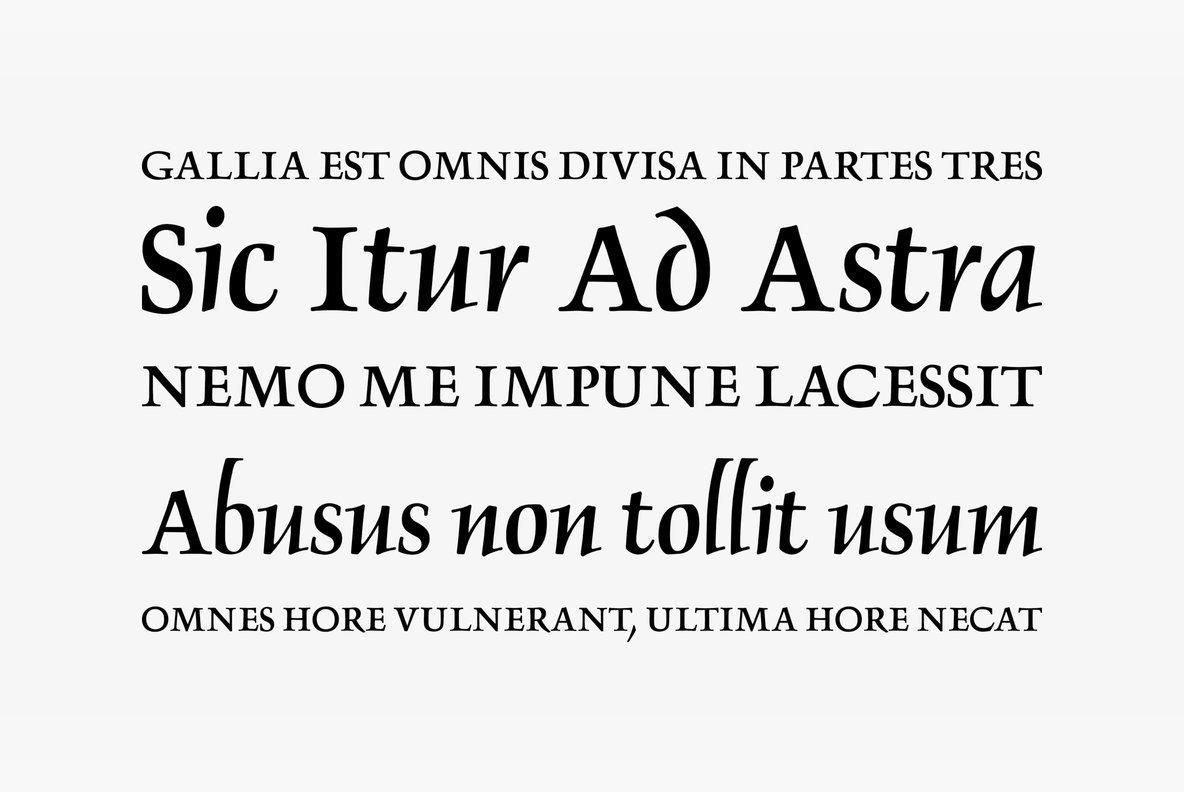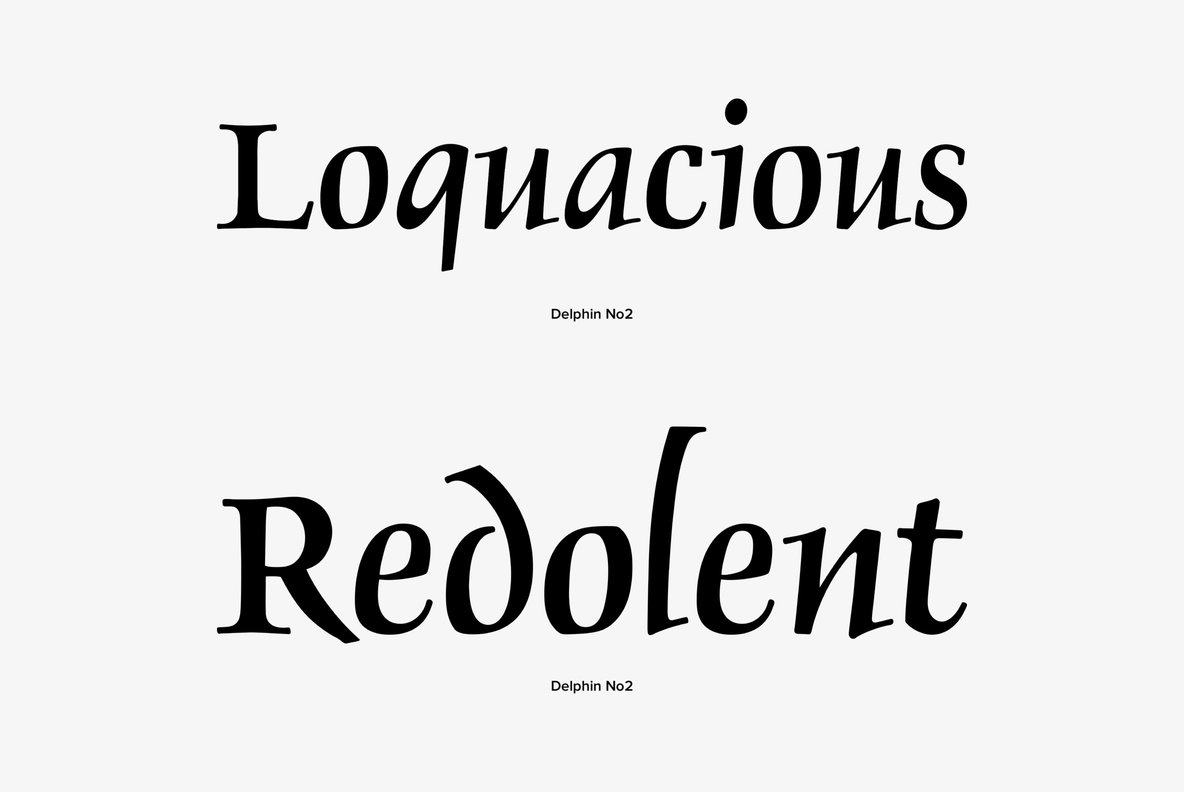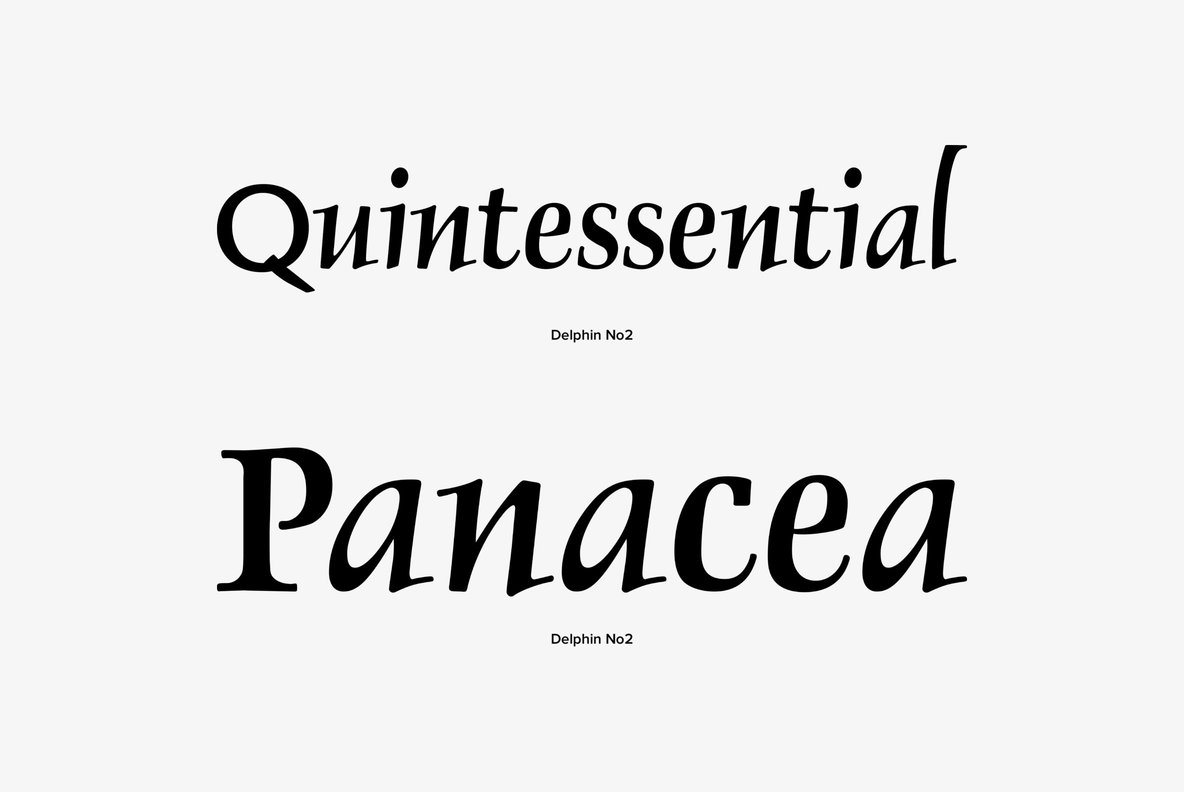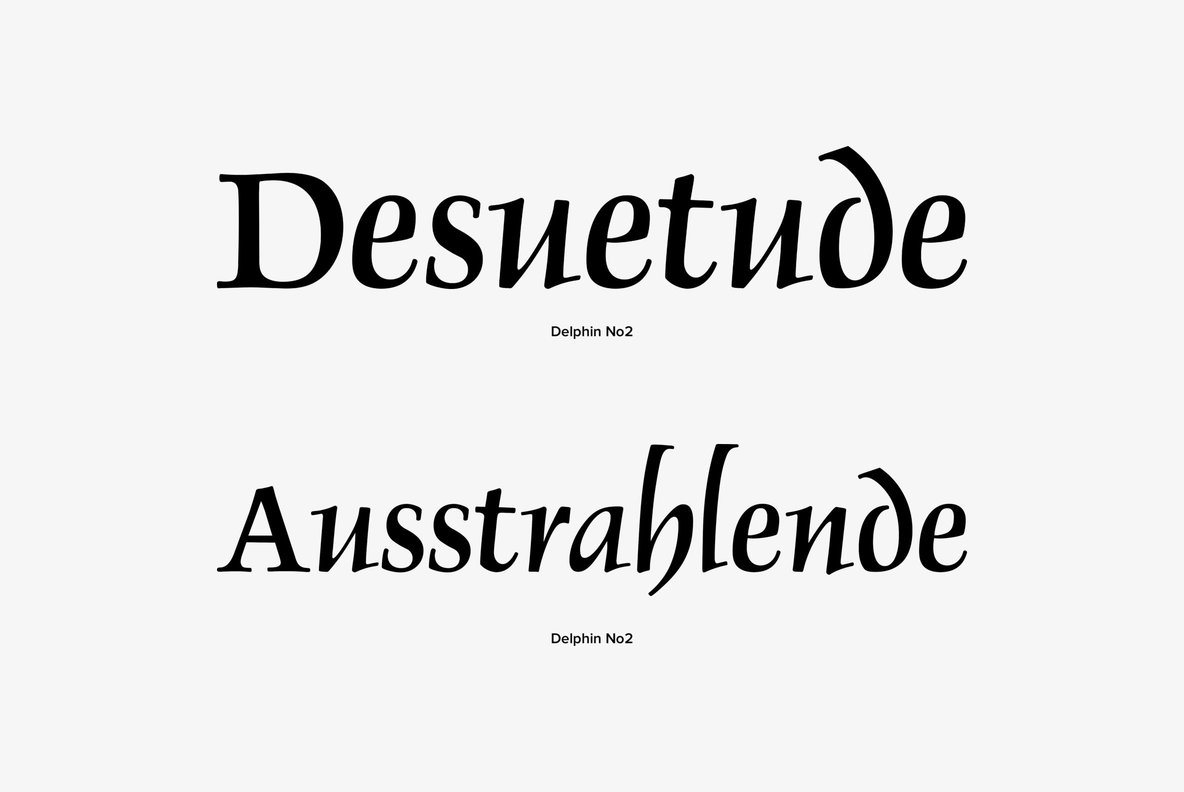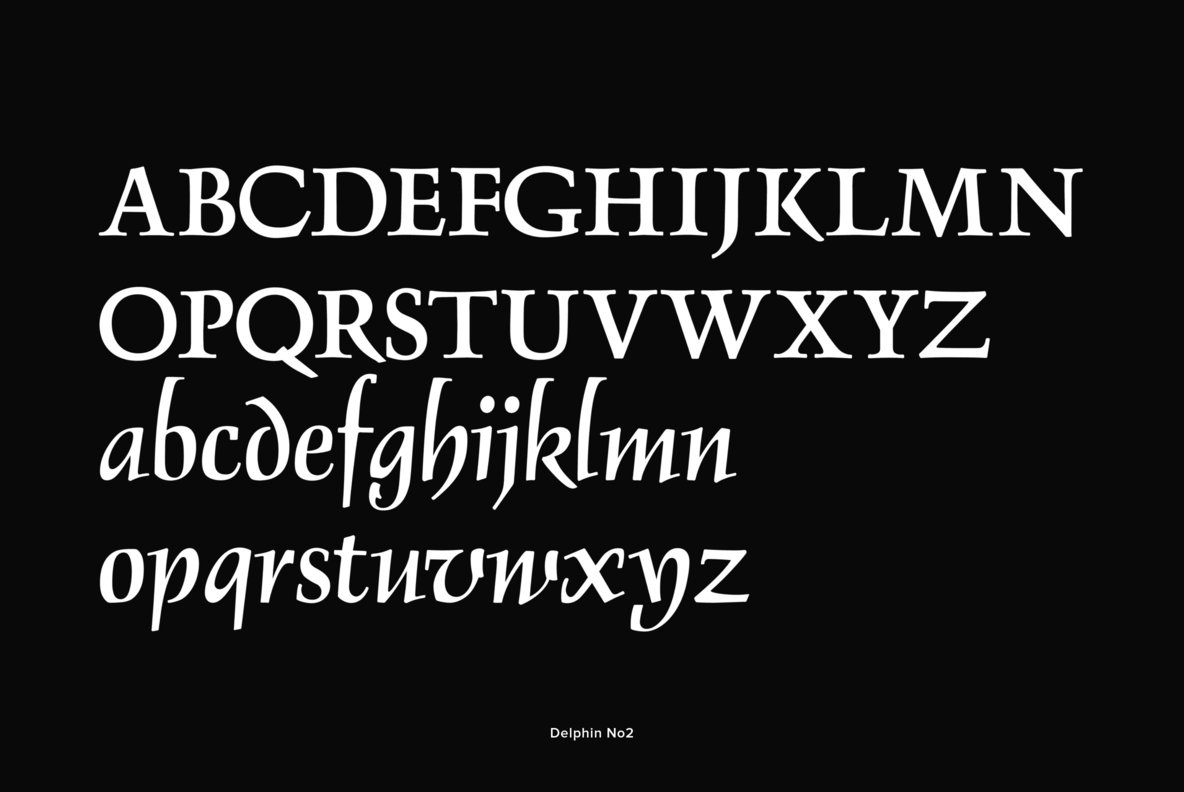
Designed by Georg Trump in 1951, Delphin No 2 is a classic serif font release by URW. Contains language support for West, East, Turkish, Baltic, and Romanian.